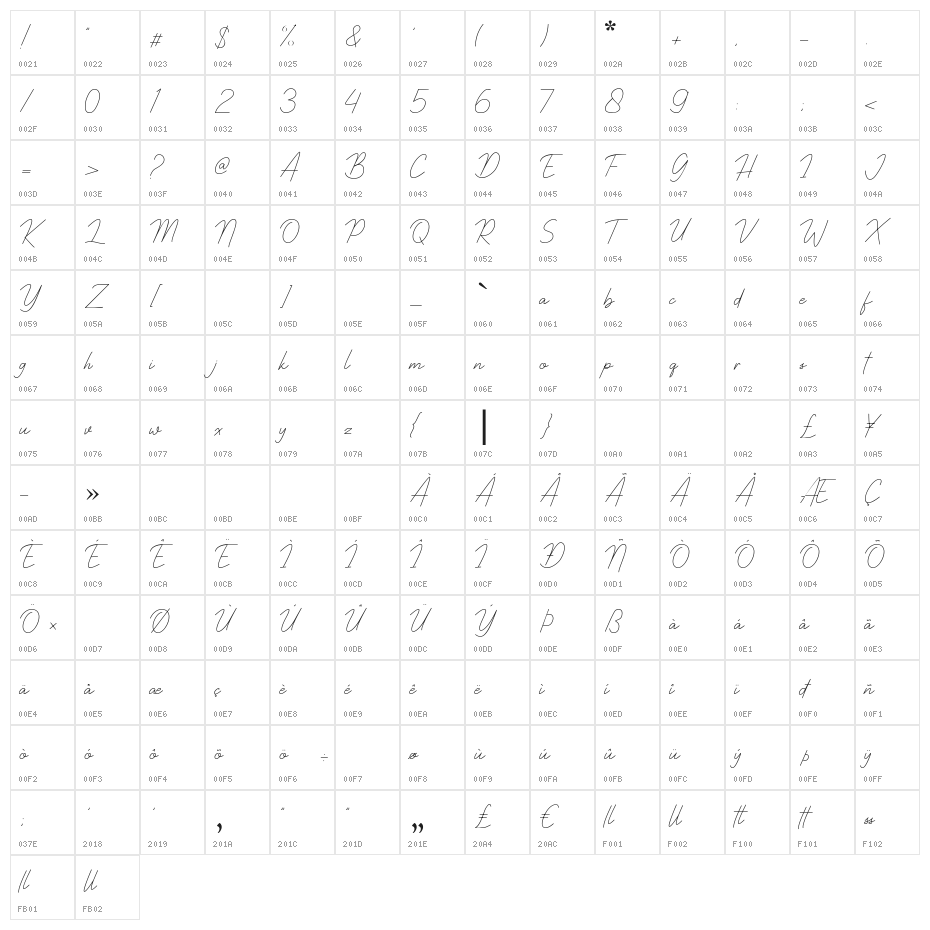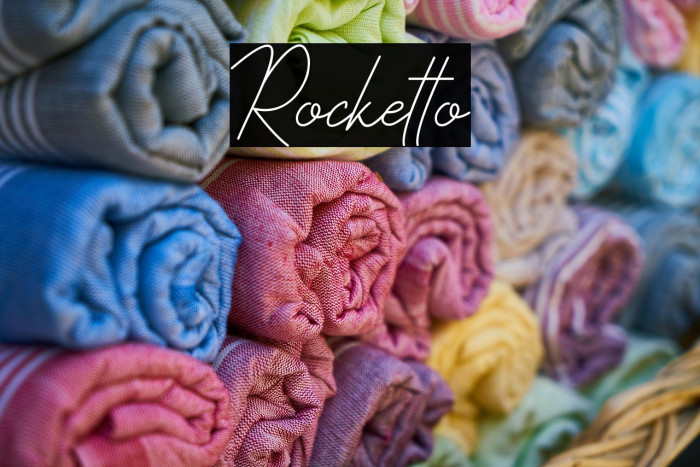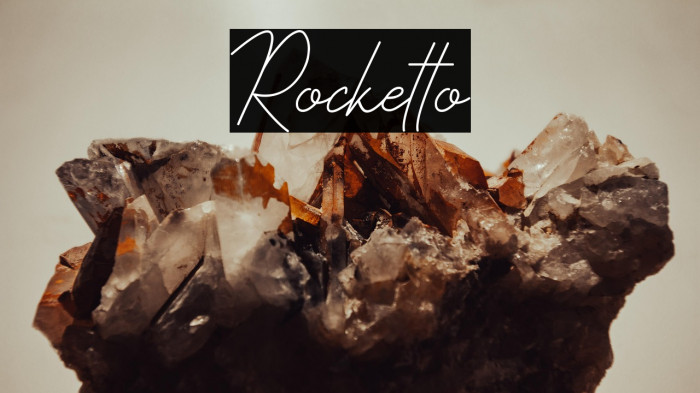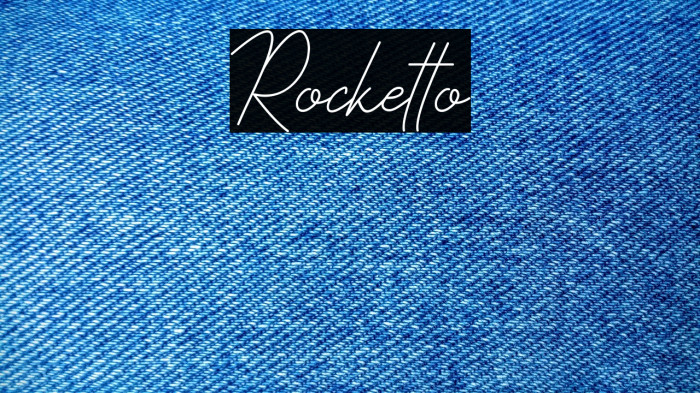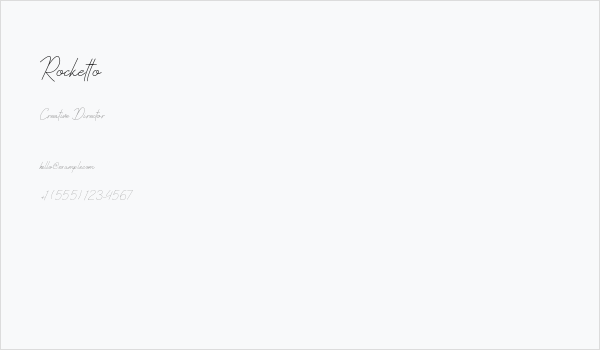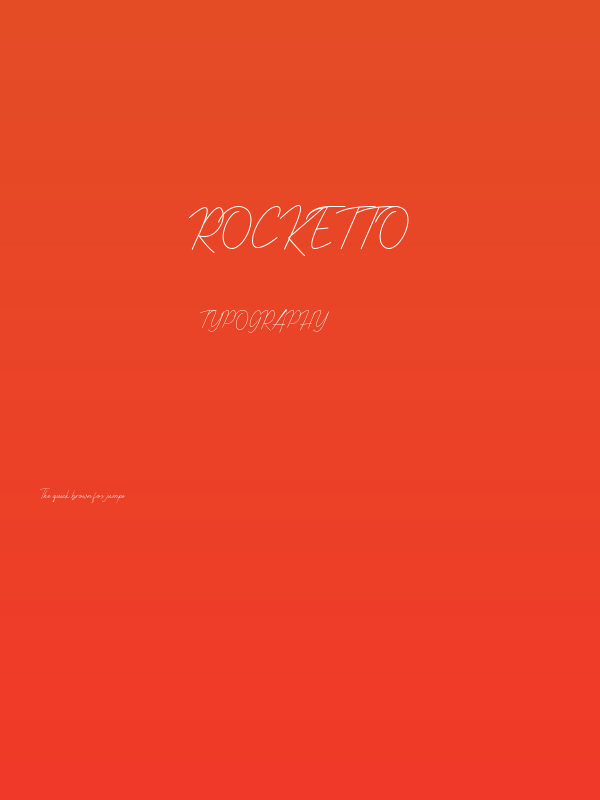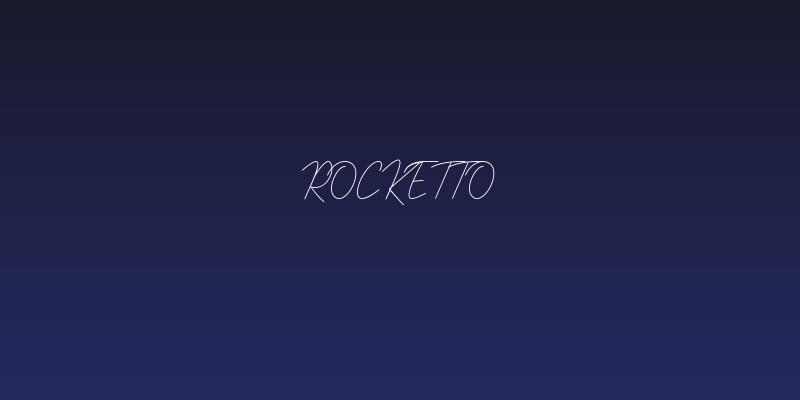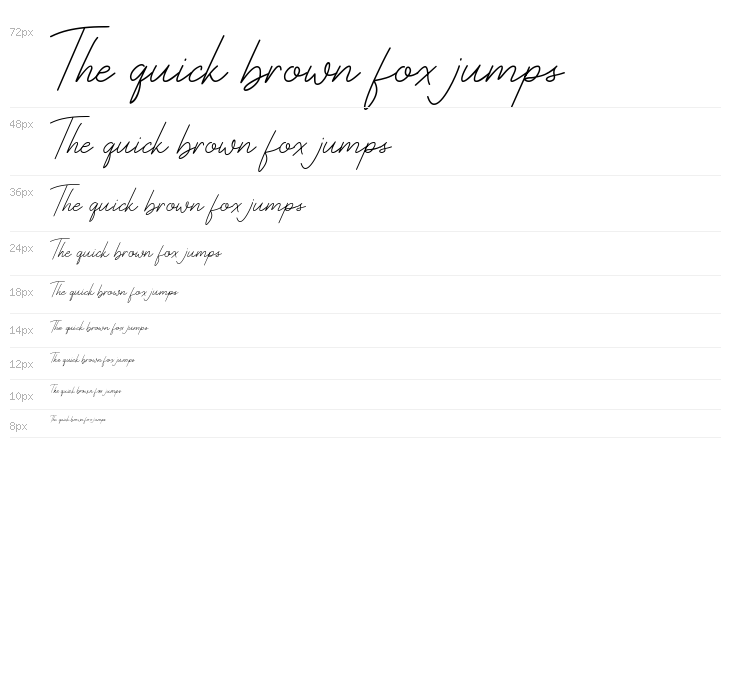
Rocketto Font
Rocketto Description
This elegant script font features a flowing, cursive style with smooth, continuous strokes that give it a sophisticated and graceful appearance. The letters are slightly slanted, adding to the fluidity and dynamic nature of the design. The uppercase characters are larger and more ornate, while the lowercase letters maintain a consistent, harmonious flow. The numerals and special characters are designed to complement the overall style, with a similar emphasis on curves and fluidity. This font is perfect for projects that require a touch of elegance and refinement.
Overall StyleElegant
Use CaseHeadlines, Invitations, Branding
Proposed ProjectsIdeal for wedding invitations, elegant branding, personal signatures, and decorative headings.